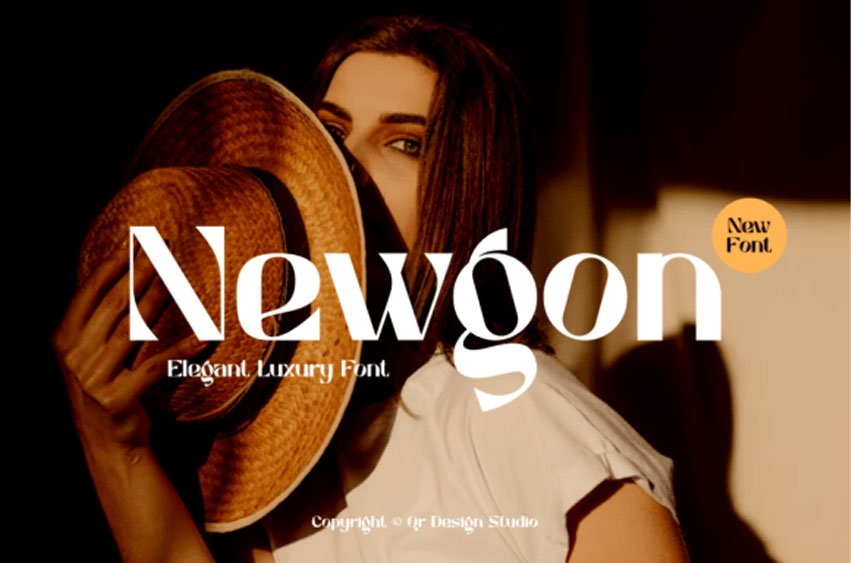
Newgon Font
Newgon Font is a sleek, modern serif font with an elegant twist and high-fashion flair. Its unique cuts and bold contrast give it a refined presence that’s perfect for luxury branding, editorial design, and upscale packaging. Newgon is both sharp and sensual—perfect for brands that want to look effortlessly stylish.
Use it for fashion magazines, beauty labels, or bold typographic posters—Newgon instantly elevates the tone with designer-level detail.